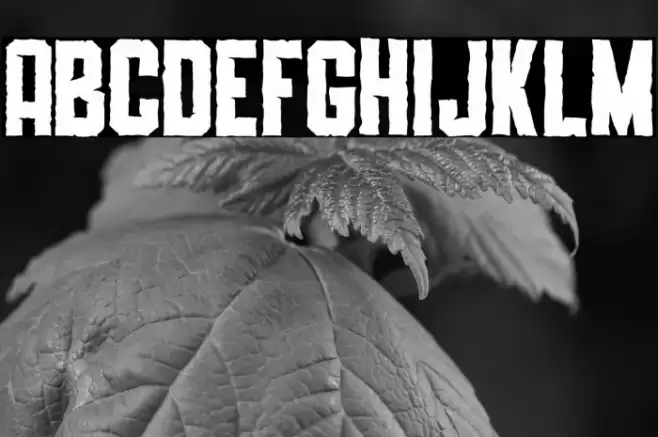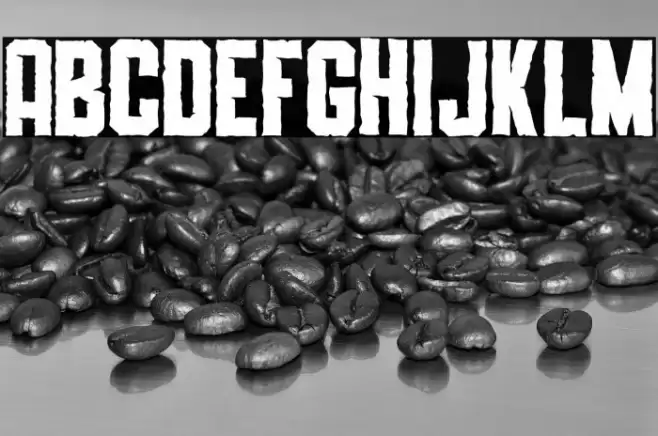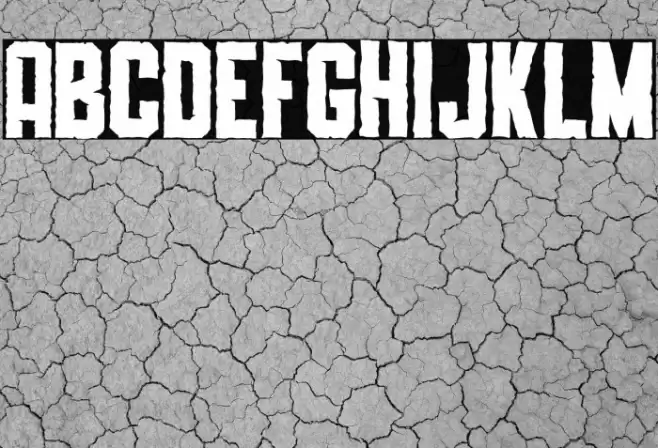
SLIMEDUNK ROUGH Font
SLIMEDUNK ROUGH Description
This font features a bold and rugged design with a distressed, rough texture that gives it a gritty, urban feel. The uppercase letters are blocky and substantial, with uneven edges that create a sense of movement and energy. The font's style is reminiscent of graffiti or street art, making it ideal for projects that require a bold, eye-catching aesthetic. Its heavy weight and distinctive appearance make it suitable for headlines, posters, and other display purposes where a strong visual impact is desired.
A bold, rough-textured font with a gritty, urban style from Uncategorized fonts.
- Font: SLIMEDUNK ROUGH
- Proposed Projects: Ideal for street art-inspired designs, posters, album covers, and branding that requires a bold statement.
- Overall Style: Urban, Gritty, Bold
- Use Case: Headlines, Posters, Logos